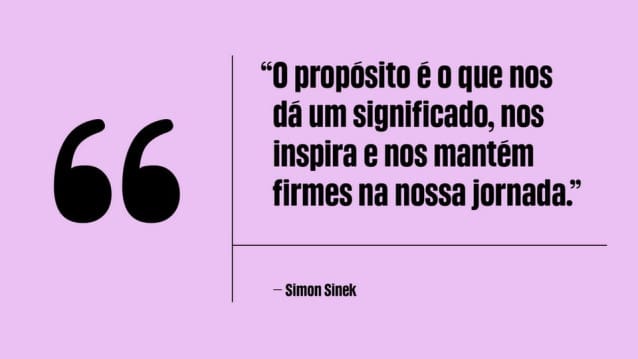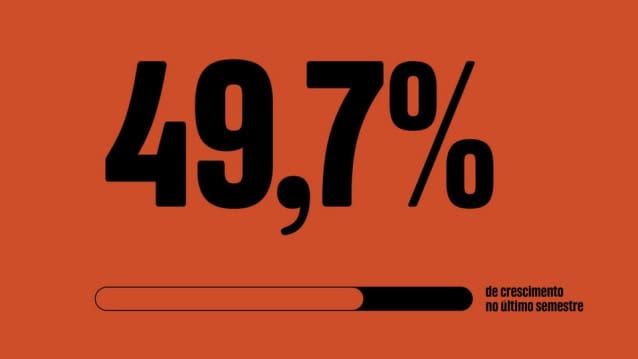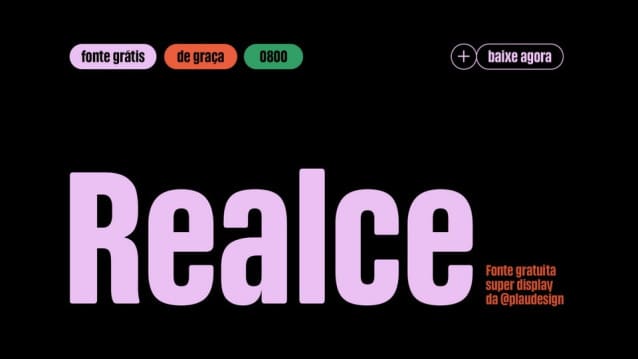
Realce Font
Realce Font is a dynamic sans-serif font designed specifically for large titles, boasting a single weight that offers exceptional versatility in various design contexts. The font is crafted to deliver maximum impact and readability, making it ideal for headline usage across a wide range of projects.
With its bold and expressive design, Realce font is perfect for grabbing attention and making a statement in print and digital mediums alike. Whether you’re designing magazine covers, website banners, or signage, this font offers unmatched flexibility and adaptability to suit your creative needs.